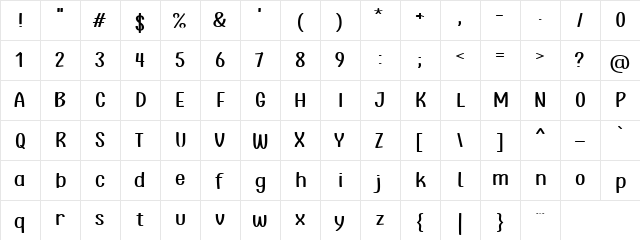
Trending Topic Regular
Trending Topic is a composed and adaptable typeface that performs quietly and consistently across a wide range of design contexts.